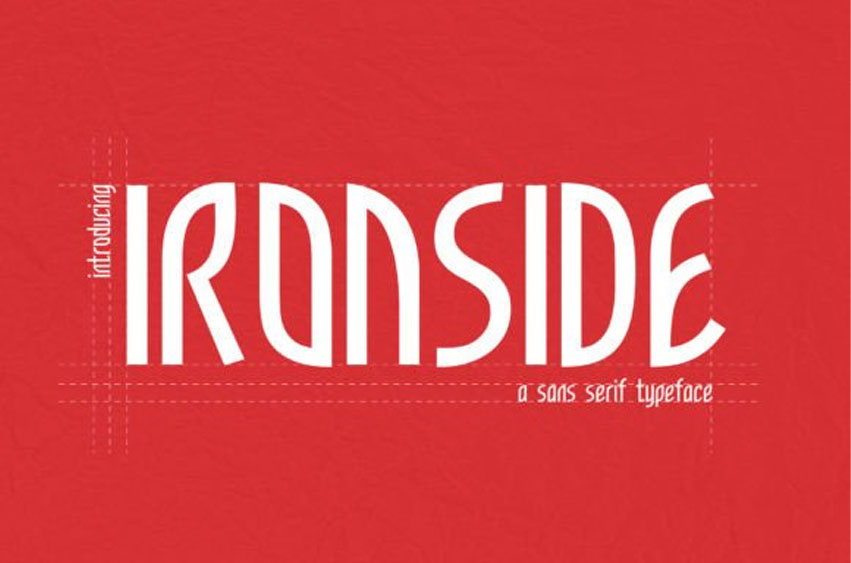
Ironside Font
Ironside Font Birthed from vintage signs and classic lettering, Ironside blends an art deco aesthetic with influences of vintage typography.
It is beautiful, clean, and very legible. You can use Ironside for branding, signage, posters, headlines, advertising, marketing, social media, Youtube cover, badges, and more.